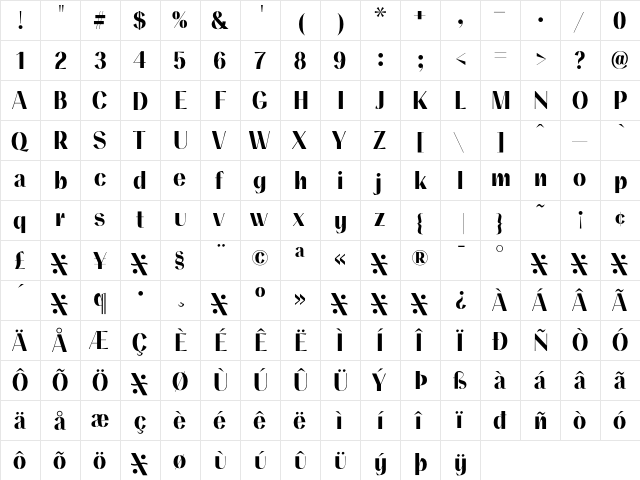
NumskillBold Regular
NumskillBold takes a measured approach to typography — its balanced proportions and neutral character make it a reliable workhorse for both digital and print work. The heavy weight commands attention and anchors typographic hierarchies.